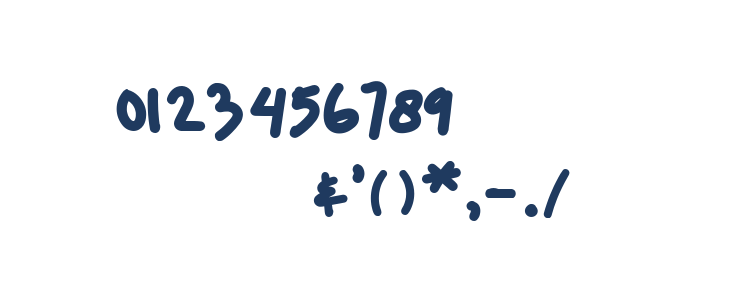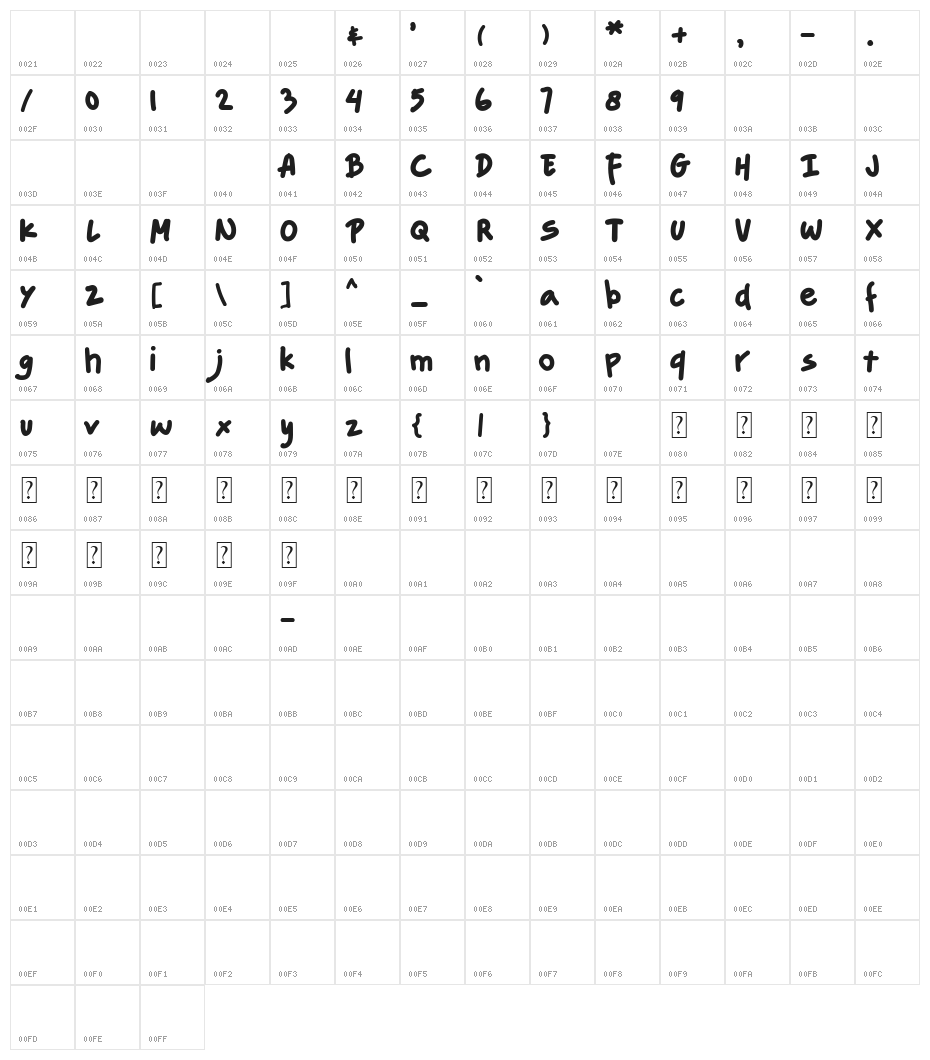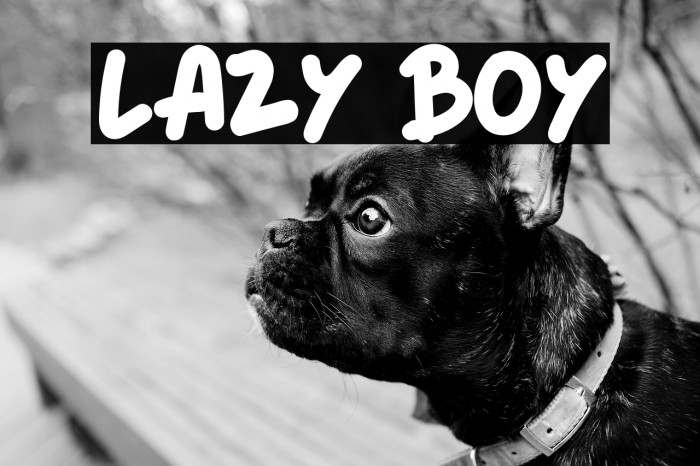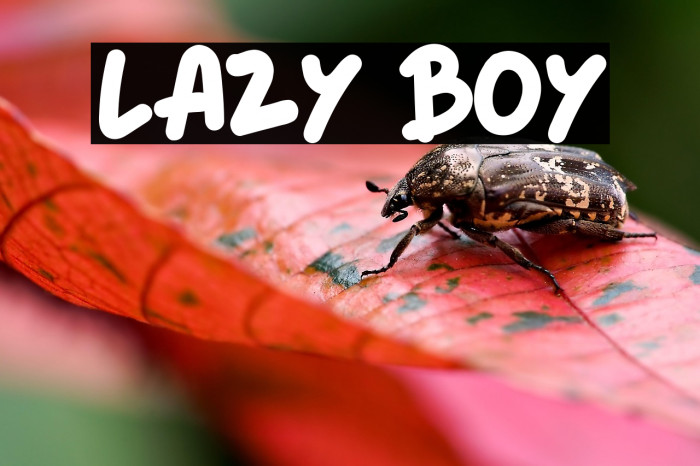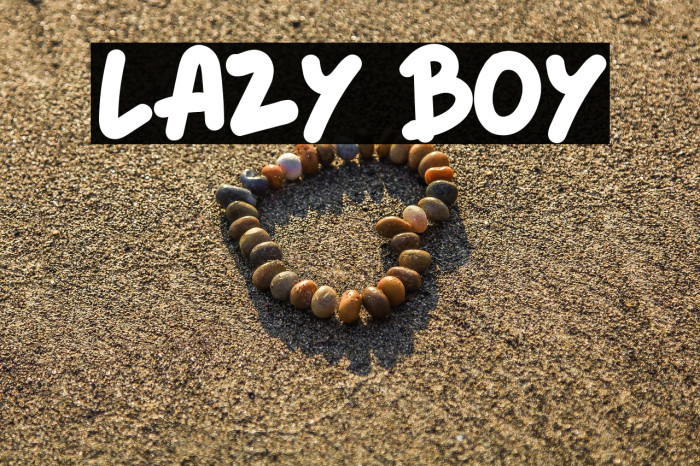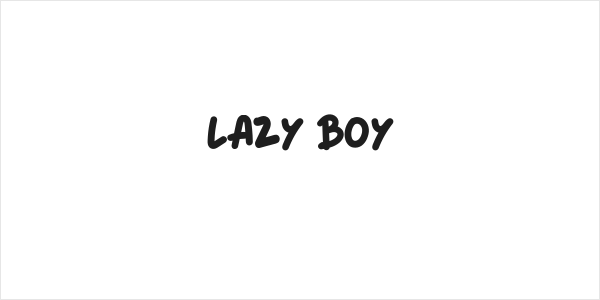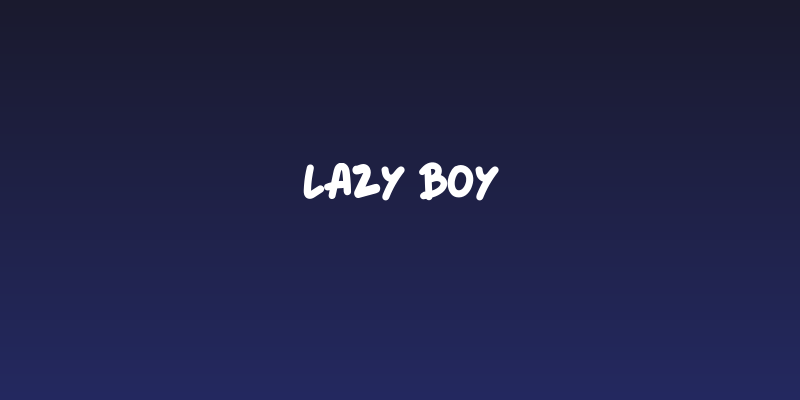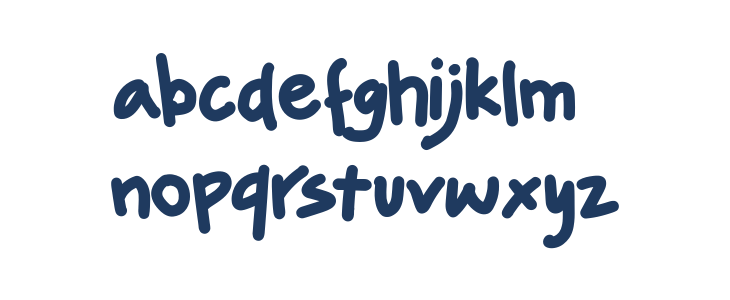
LAZY BOY Font
LAZY BOY Description
This font features a playful and casual handwritten style, characterized by its bold and rounded letterforms. The uppercase and lowercase letters maintain a consistent thickness, giving the font a cohesive look. The numbers and special characters are designed to match the overall style, with a slightly irregular and organic feel that adds to its charm. The font's informal and friendly appearance makes it suitable for projects that aim to convey a sense of approachability and creativity.
| Use Case | Logos, Headlines, Informal Text |
| Proposed Projects | Ideal for children's books, greeting cards, casual branding, and social media graphics. |